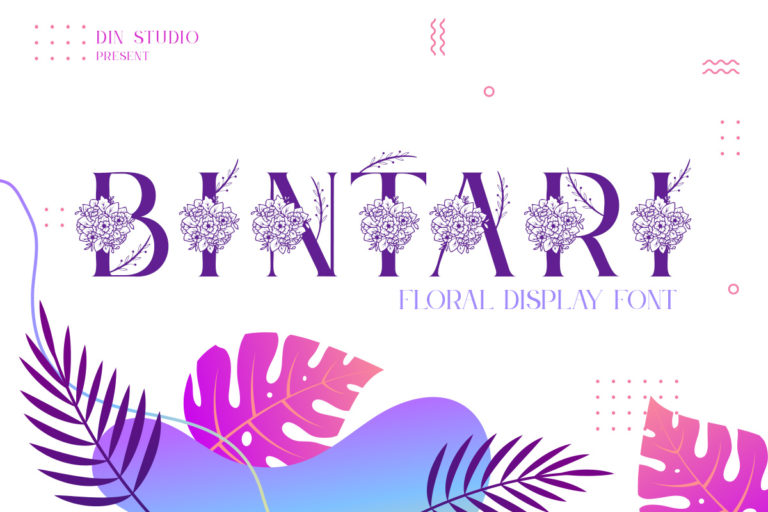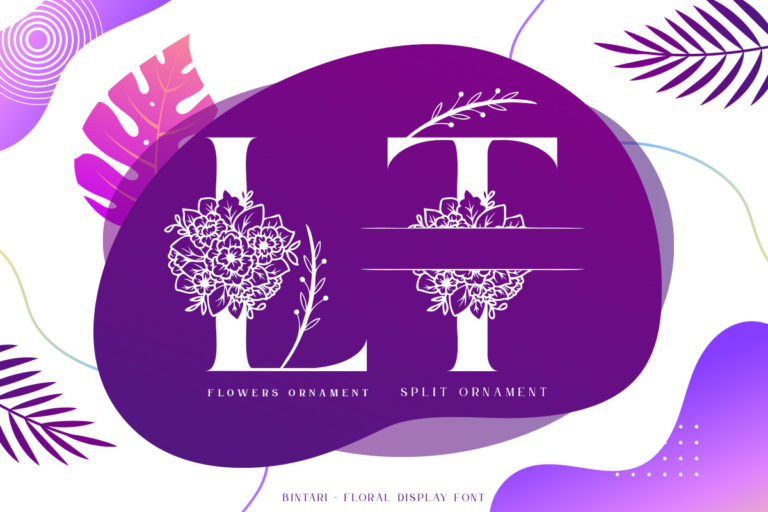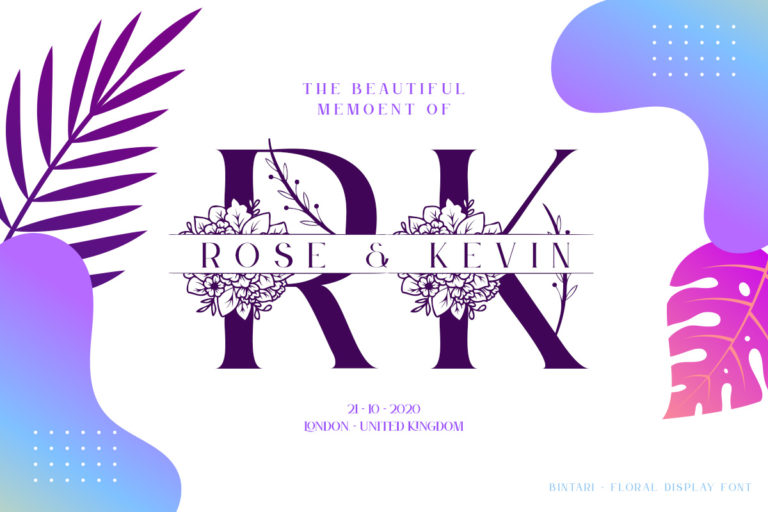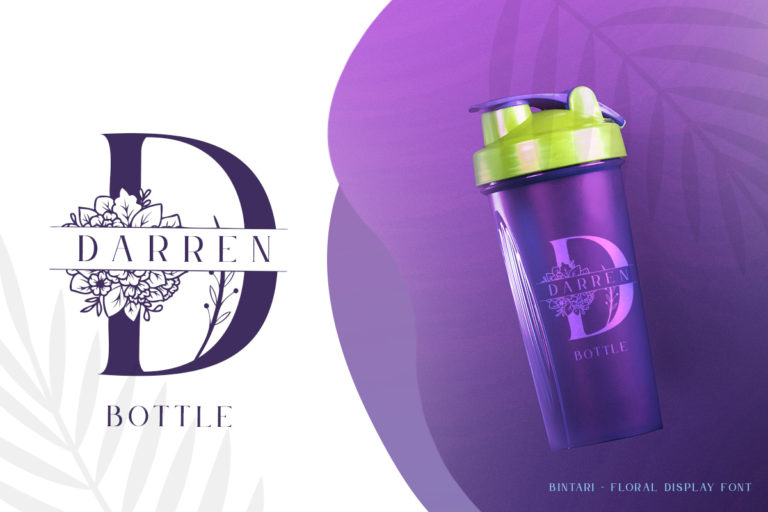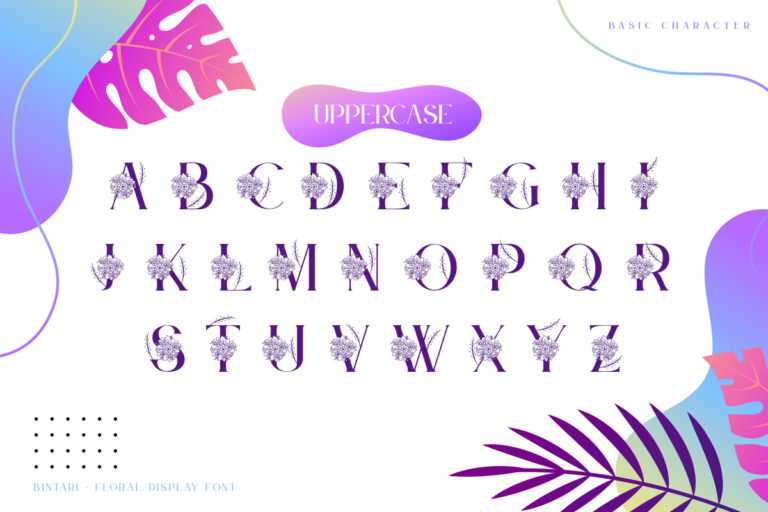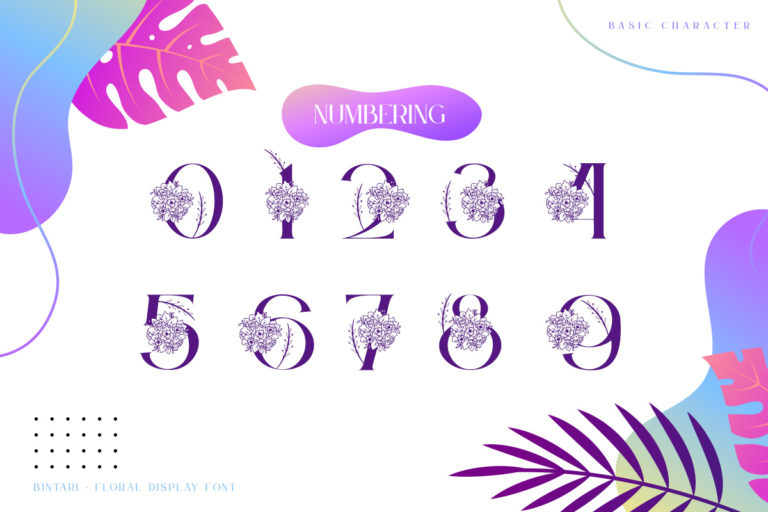
Bintari – Floral Display Font
Bintari
Hello, Everyone! Say hello to Bintari – Floral Display Font
Bintari is a beautiful decorative font, featuring elegant flowers. Get inspired by its authentic feel and use it to create gorgeous wedding invitations, lovely stationary art, eye-catching social media posts, and cute greeting cards. See the previews above to get some inspiration on how you can use them. Happy Designing!